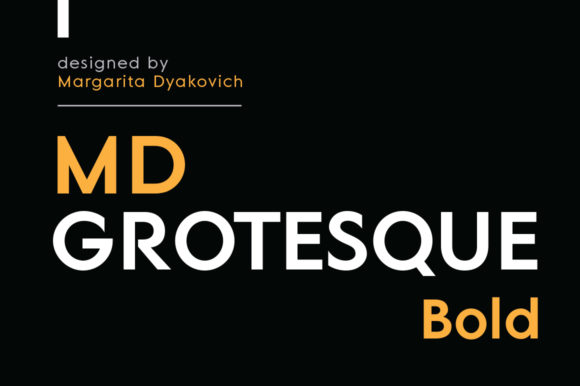
Behold the MD Grotesque Bold, a sans serif font that epitomizes minimalism and readability. Created by the talented Margarita Dyakovich, this typeface exudes an understated elegance that seamlessly complements any design, making it the perfect choice for those seeking simplicity and clarity.
So often, fonts try to do too much, incorporating excessive flourishes and intricate details that can overwhelm the message they're meant to convey. MD Grotesque Bold takes a different approach, stripping away the unnecessary and embracing a clean, unadorned aesthetic. The result is a font that possesses a quiet confidence, allowing your words to take center stage and communicate with effortless grace.
Whether you're crafting a minimalist logo, designing a user-friendly website, or creating eye-catching marketing materials, MD Grotesque Bold is your steadfast companion. Its straightforward forms and generous spacing ensure optimal legibility, even at small sizes or when viewed from a distance. This makes it an ideal font for posters, billboards, and other large-scale applications where clarity is paramount.
But don't let its simplicity fool you; MD Grotesque Bold is far from boring. Its subtle curves and carefully crafted letterforms lend it a touch of character, imbuing your designs with a timeless appeal. Whether you're working on a personal project or a high-profile campaign, this font will elevate your creations with its understated sophistication.